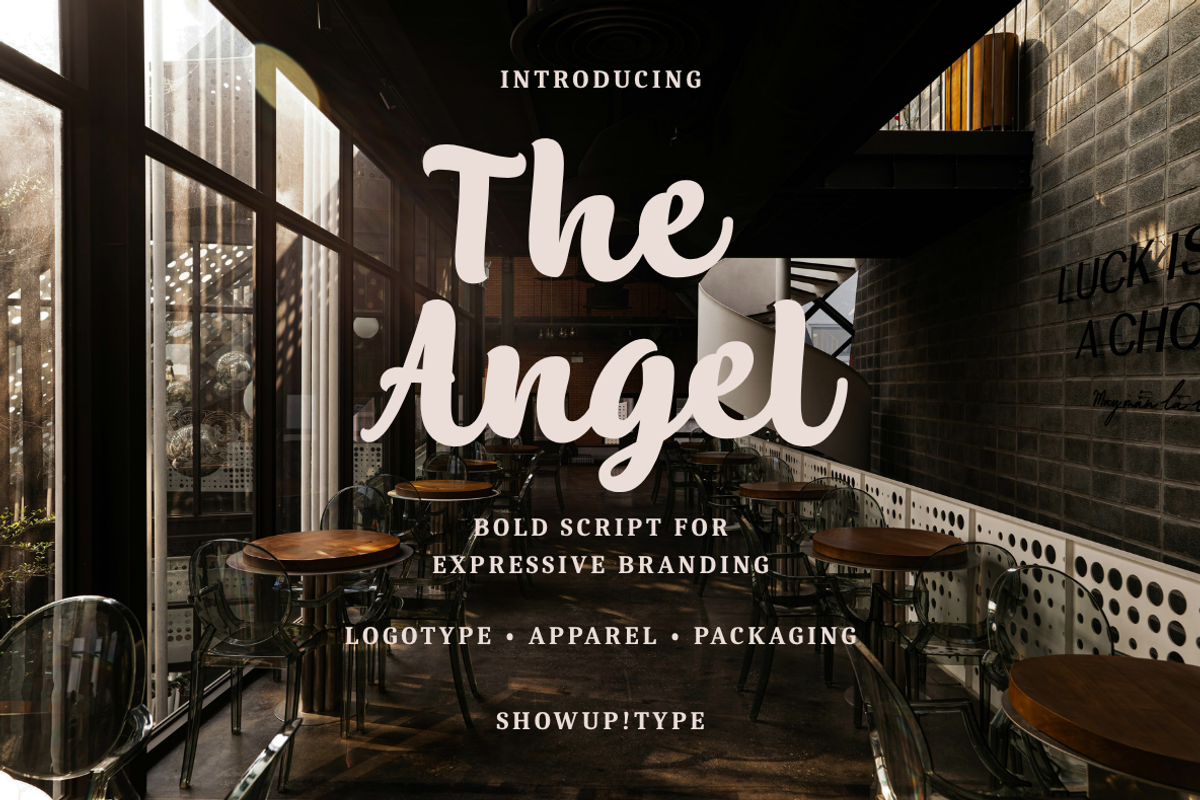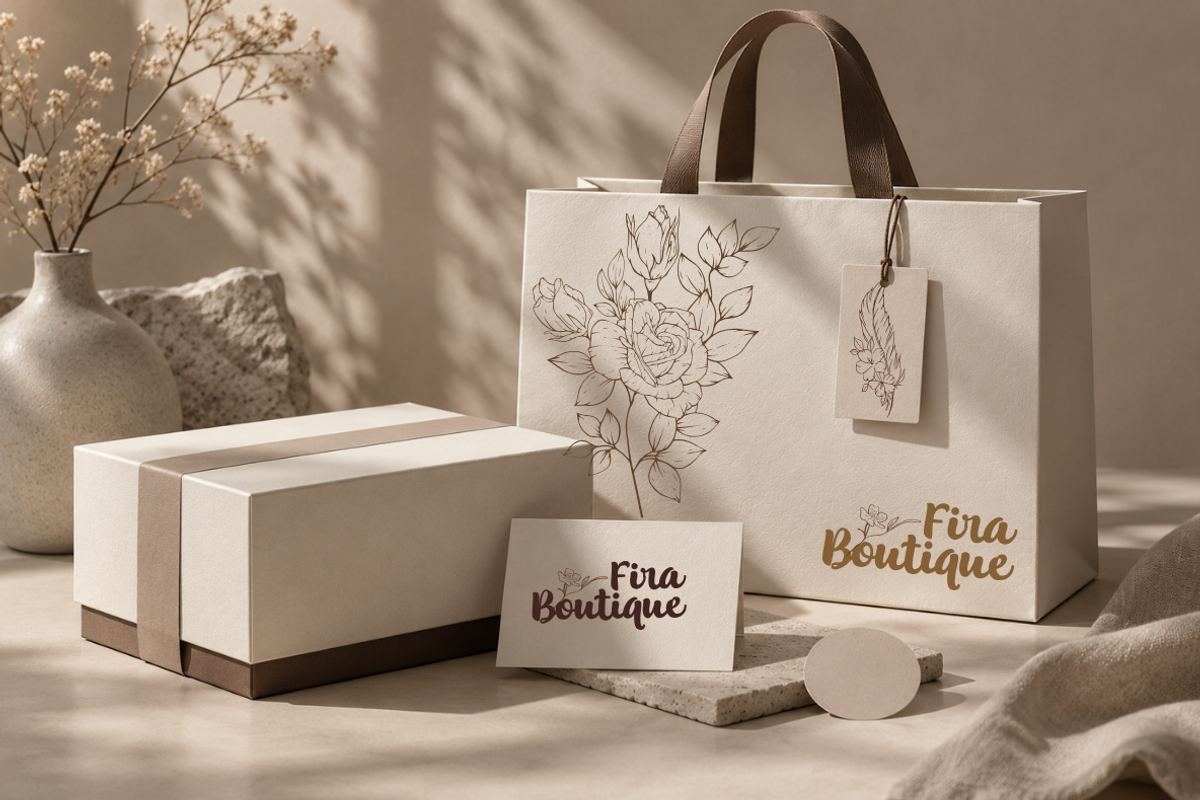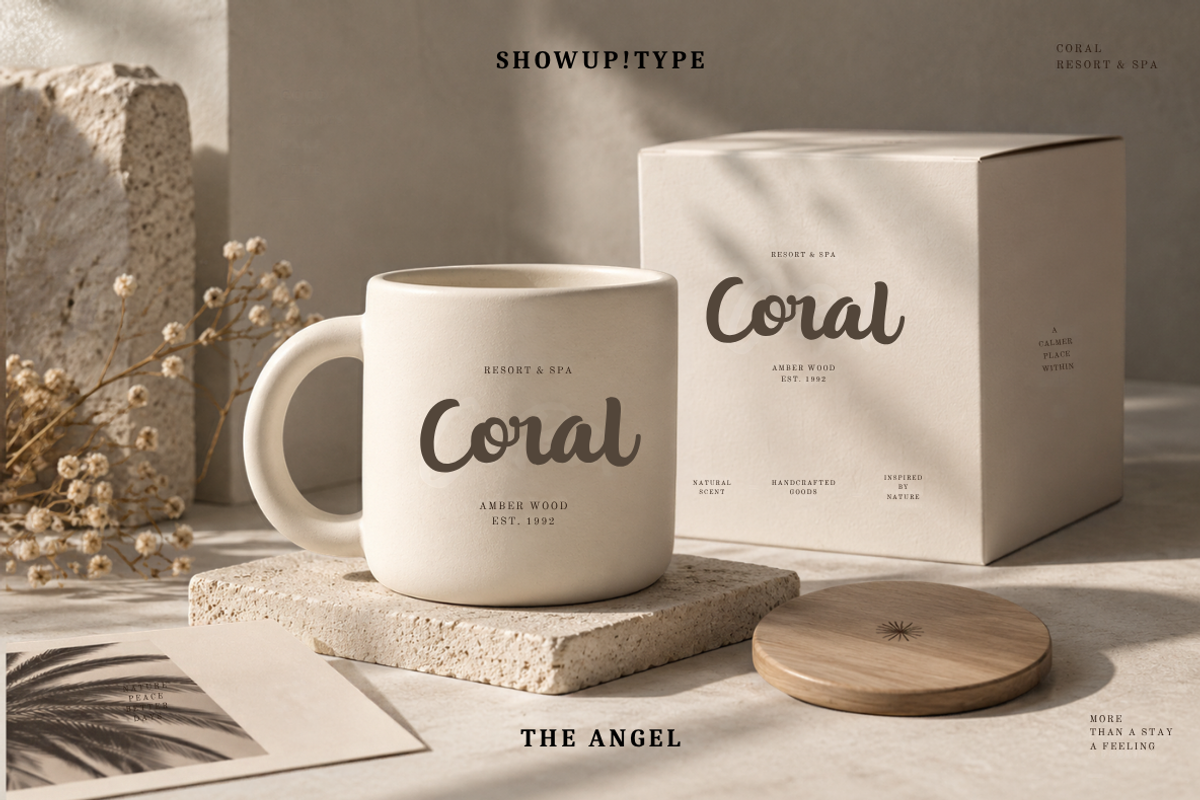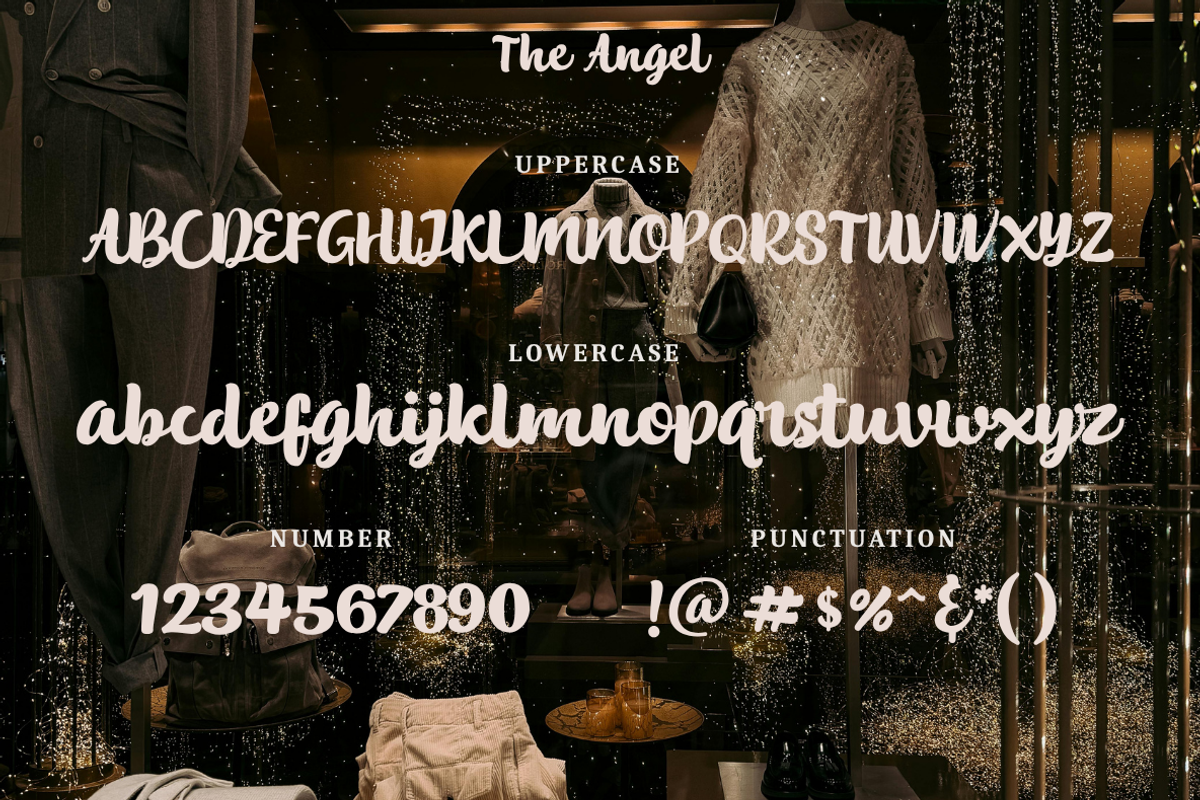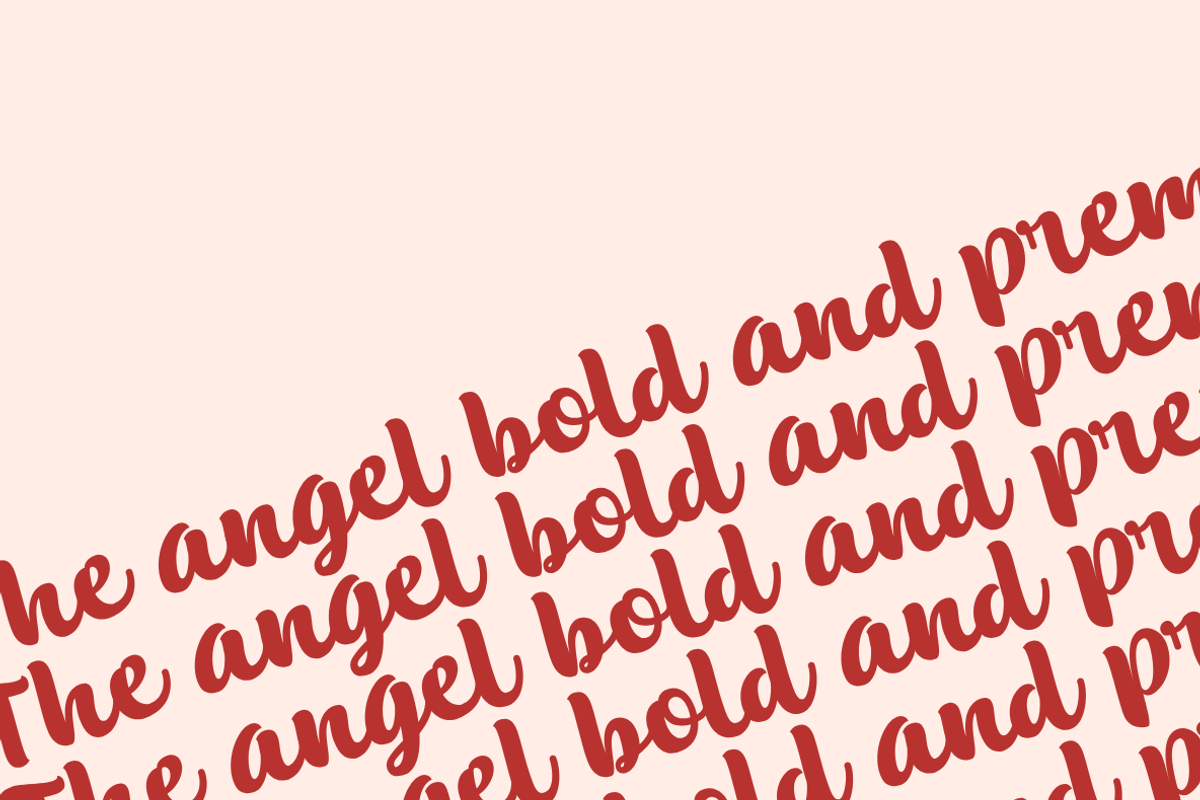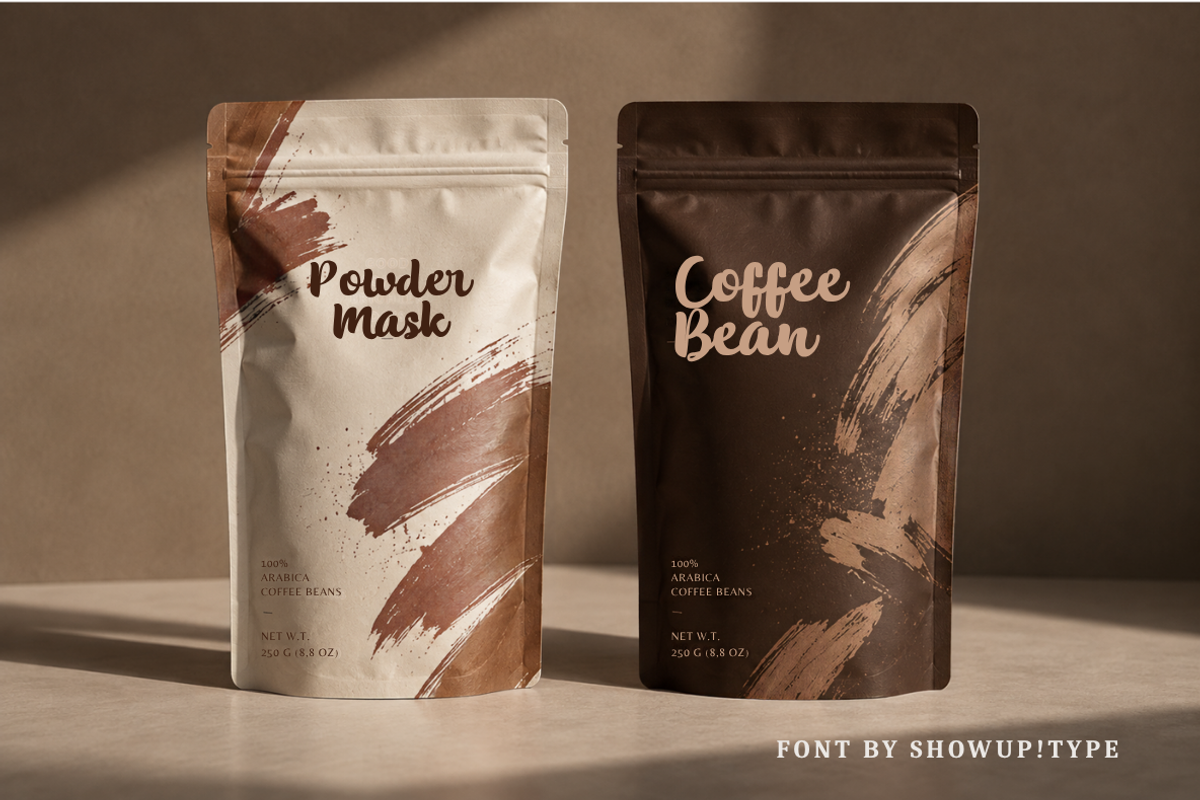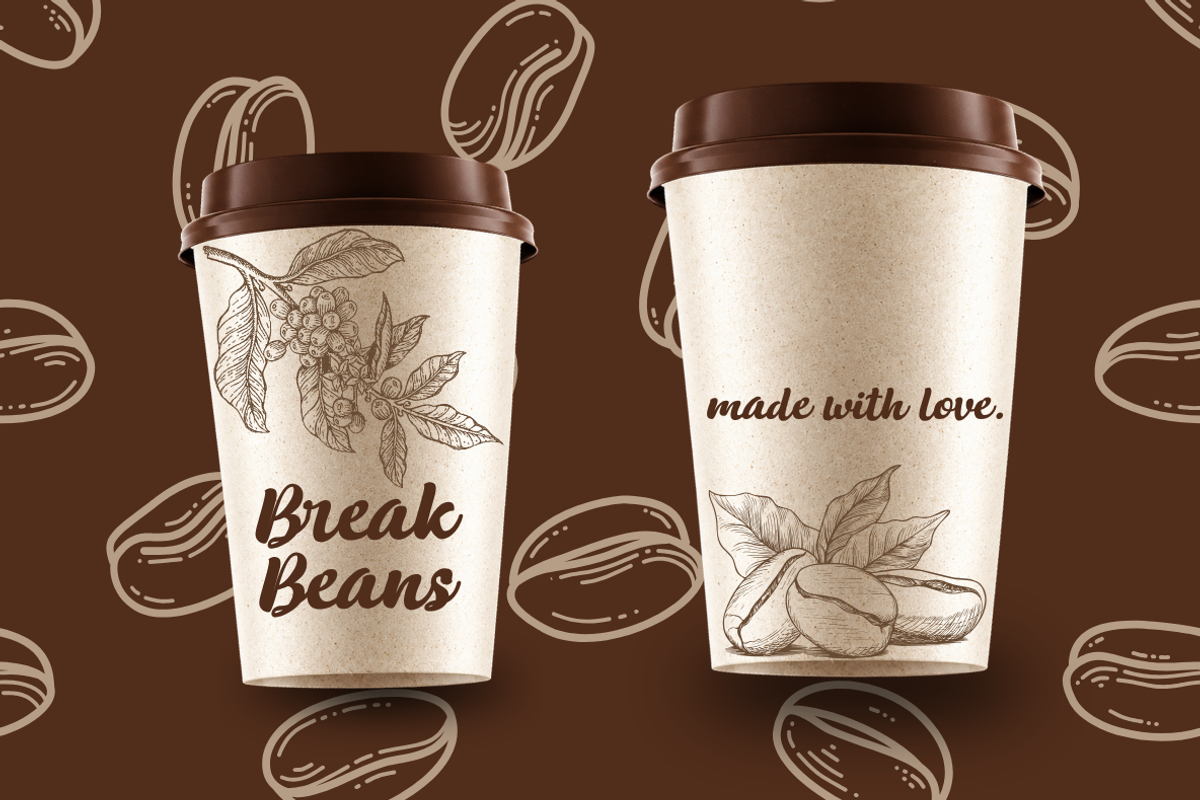
The Angel (Logotype)
The Angel – Modern Script Logo Font
Introducing The Angel, a modern script logo font crafted with smooth curves, bold handwritten strokes, and elegant flowing connections. Designed specifically for branding and logotype projects, The Angel helps you create memorable identities with a warm, friendly, and premium personality.
Featuring beautiful alternates, natural ligatures, and decorative swashes, this typeface gives you the freedom to build custom lettering that feels authentic and handcrafted. Whether you're designing a café logo, fashion brand, personal signature, product packaging, or social media branding, The Angel delivers a timeless handwritten aesthetic.
Personal Branding
Café & Restaurant Branding
Fashion Labels
Beauty & Cosmetic Brands
Business Cards
Photography Watermarks
Apparel Design
Invitations
Regular & Italic Styles
Beautiful Stylistic Alternates
Standard Ligatures
Decorative Swashes
The Angel includes a rich collection of alternate characters and ligatures, allowing you to mix and match letterforms effortlessly to create unique logos and signature typography with a natural handwritten appearance.